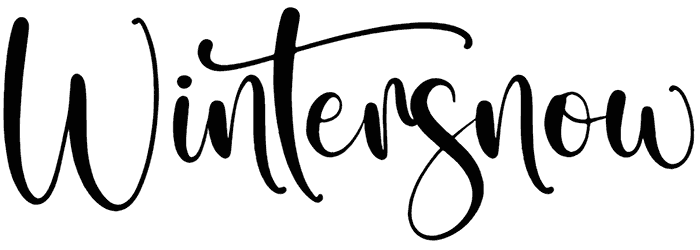
Wintersnow Font
Wintersnow is a script font that, due to its curved style, really deserves to be one of your first preferences in the realm of designing remarkable graphic content, including movie posters, social media posts, banner ads, blog posts, or headlines.